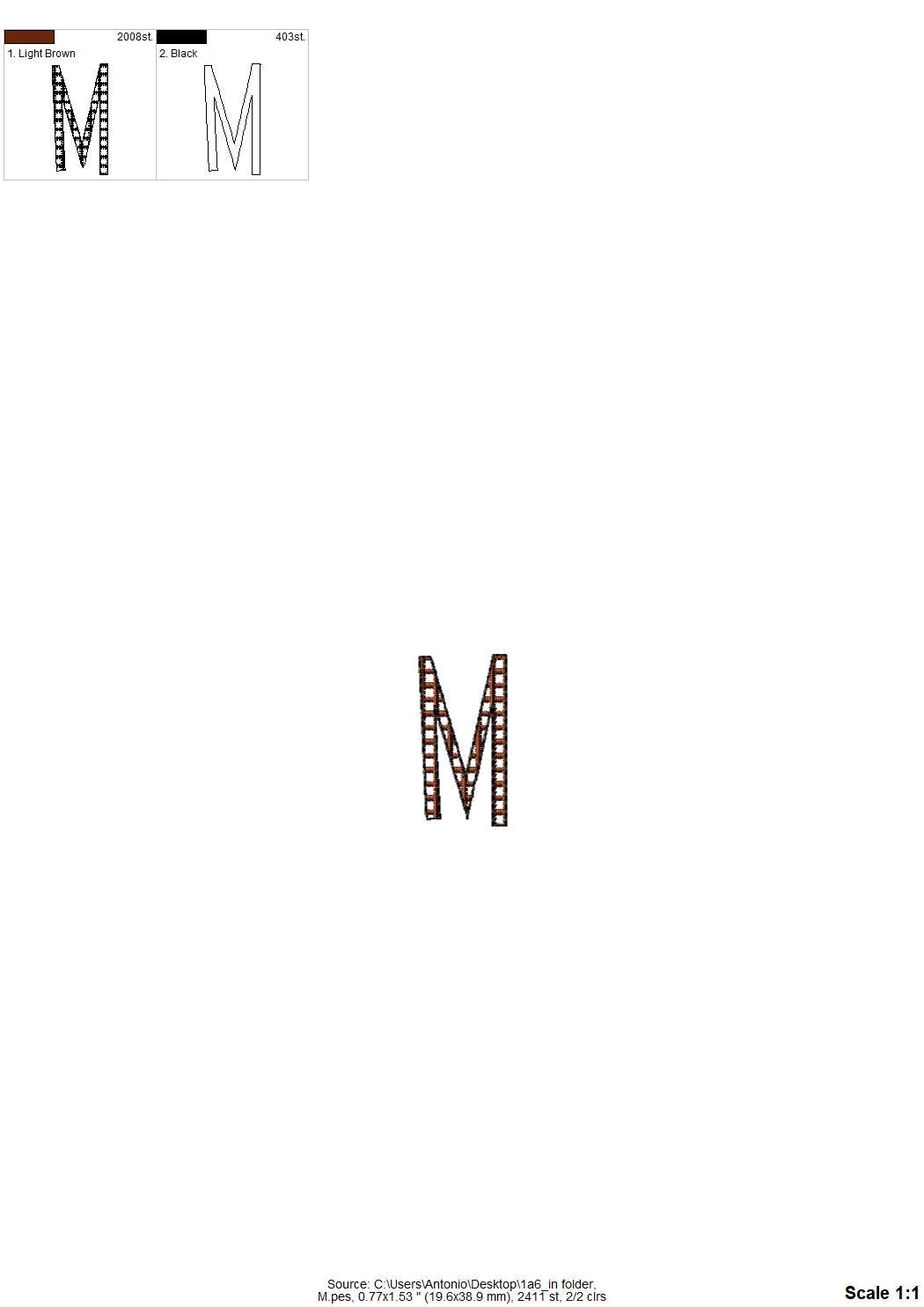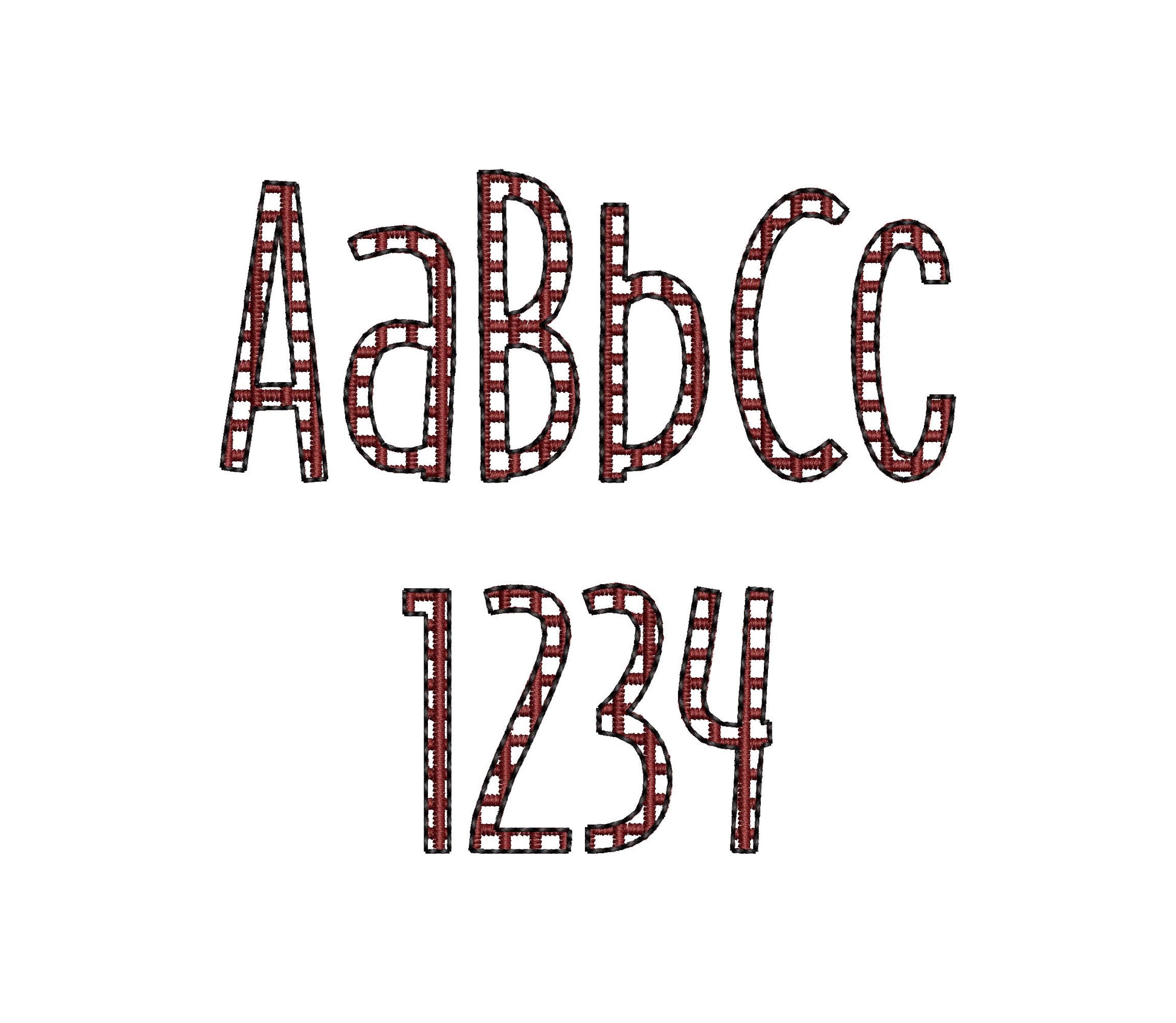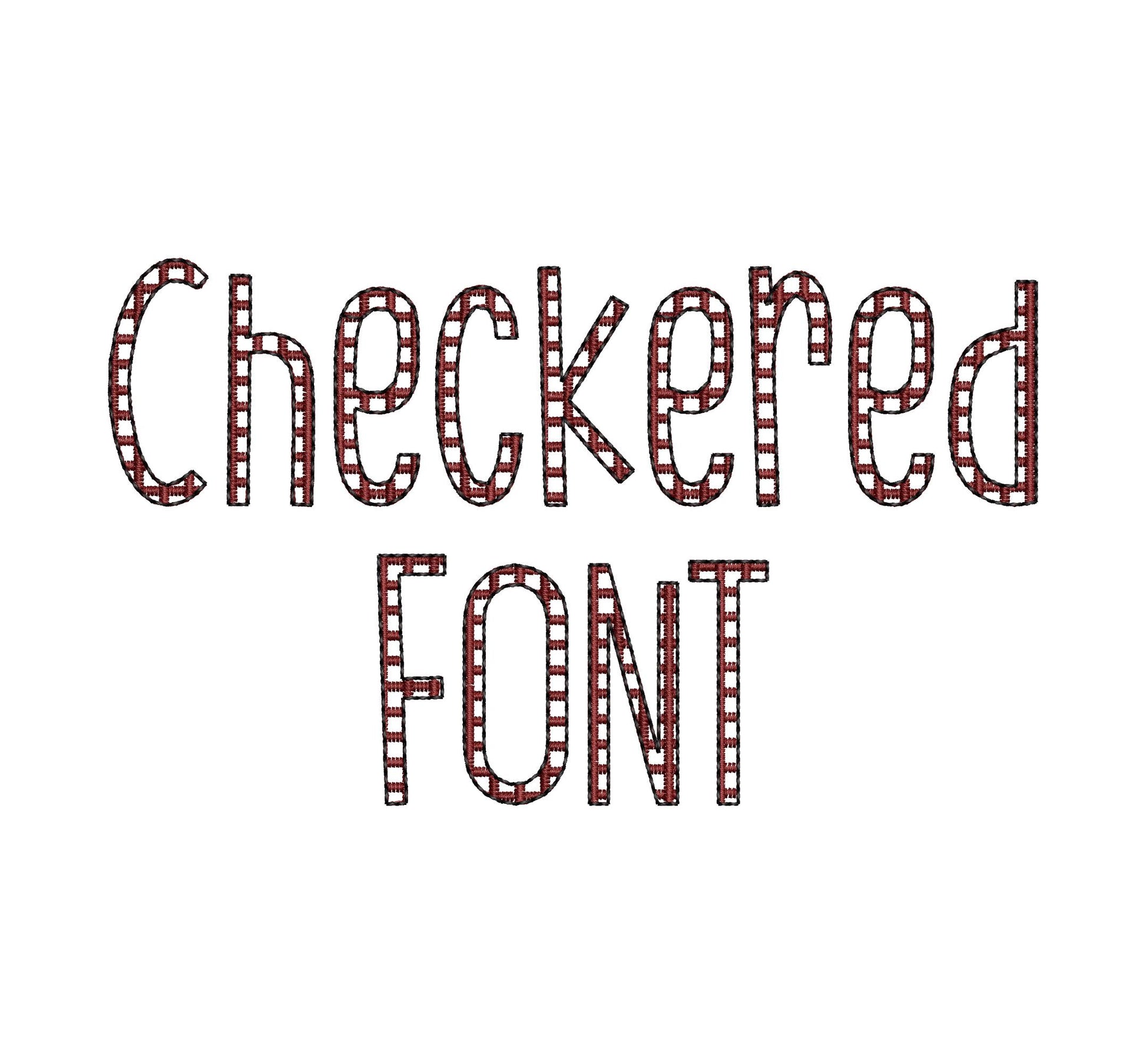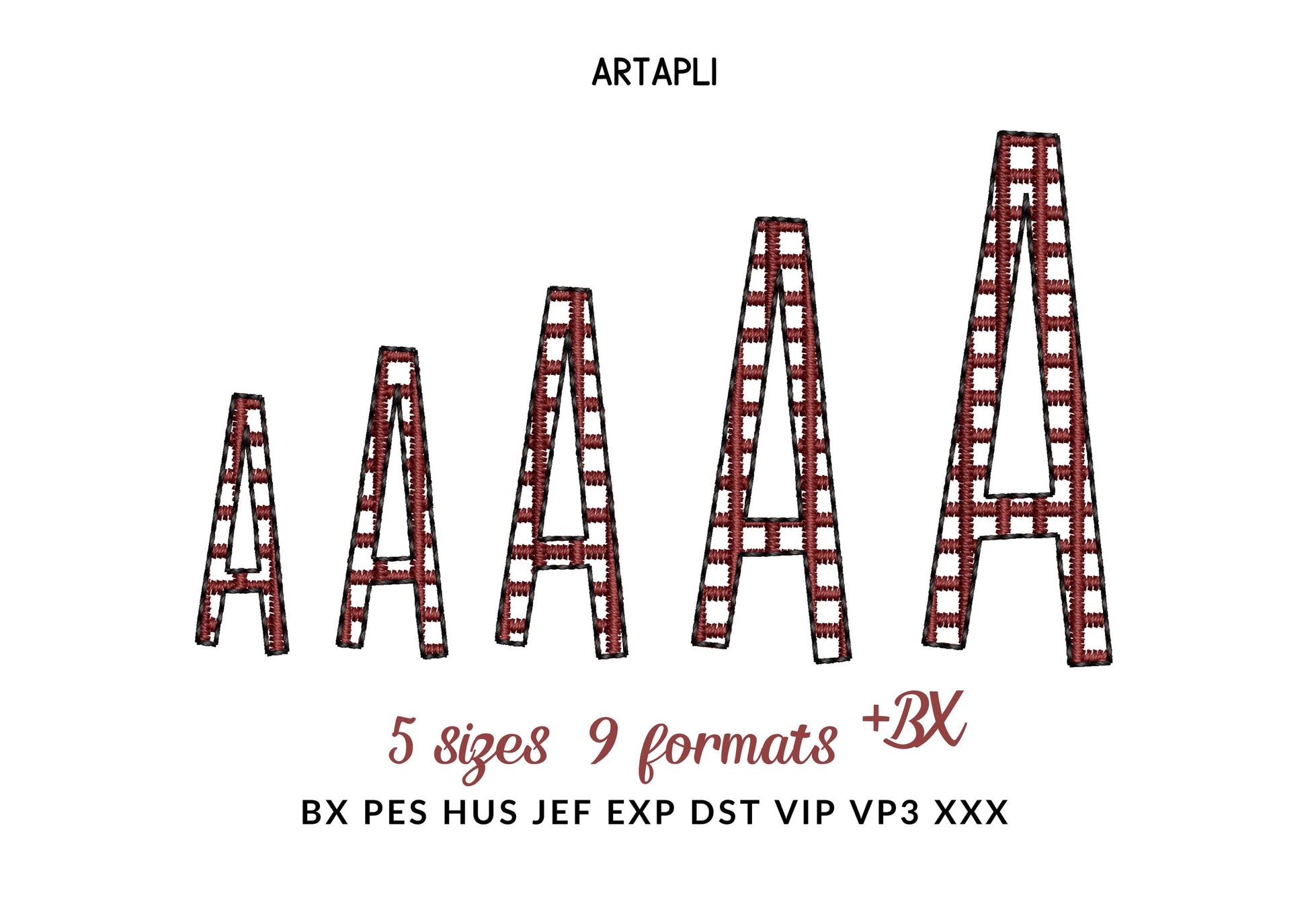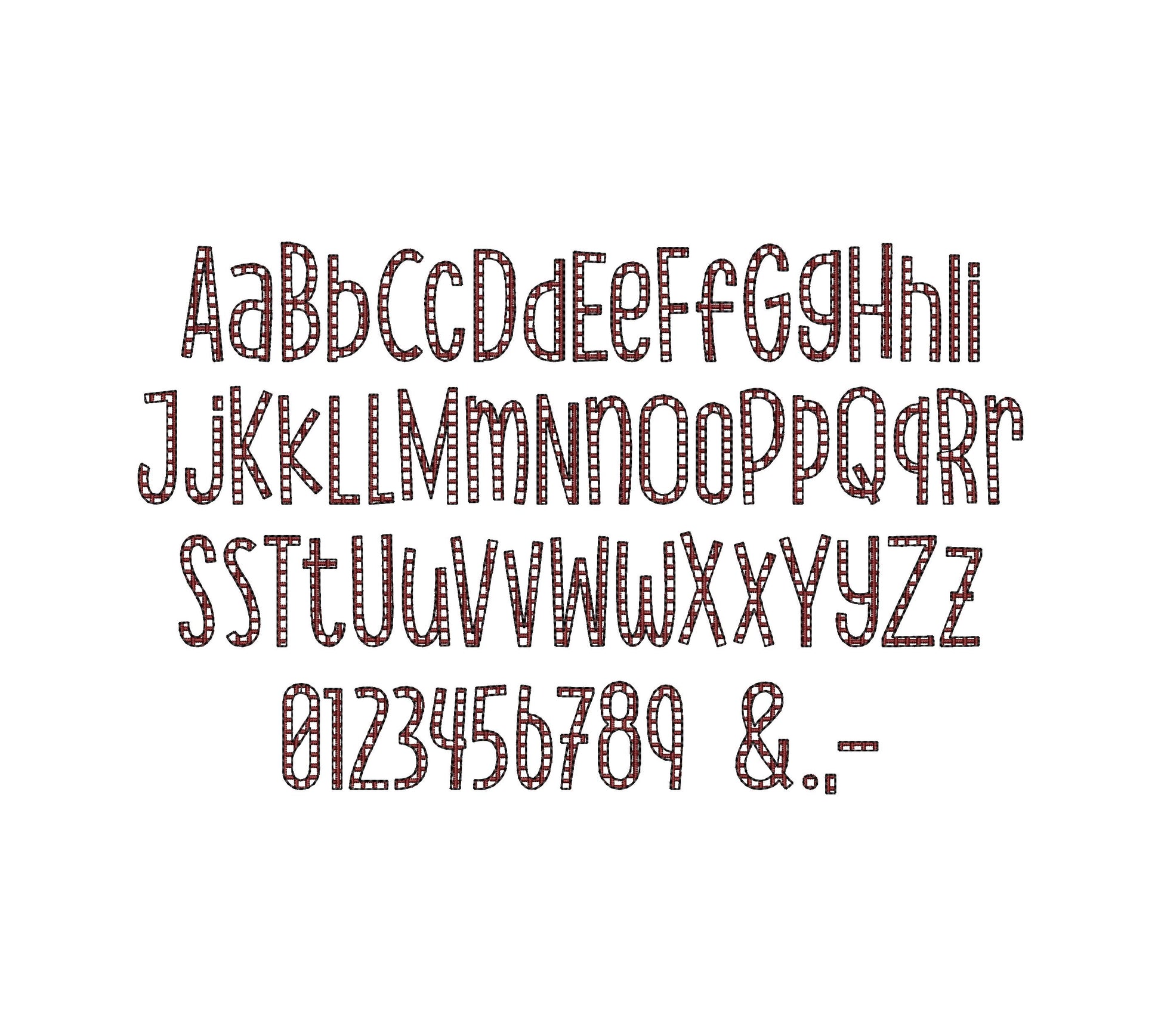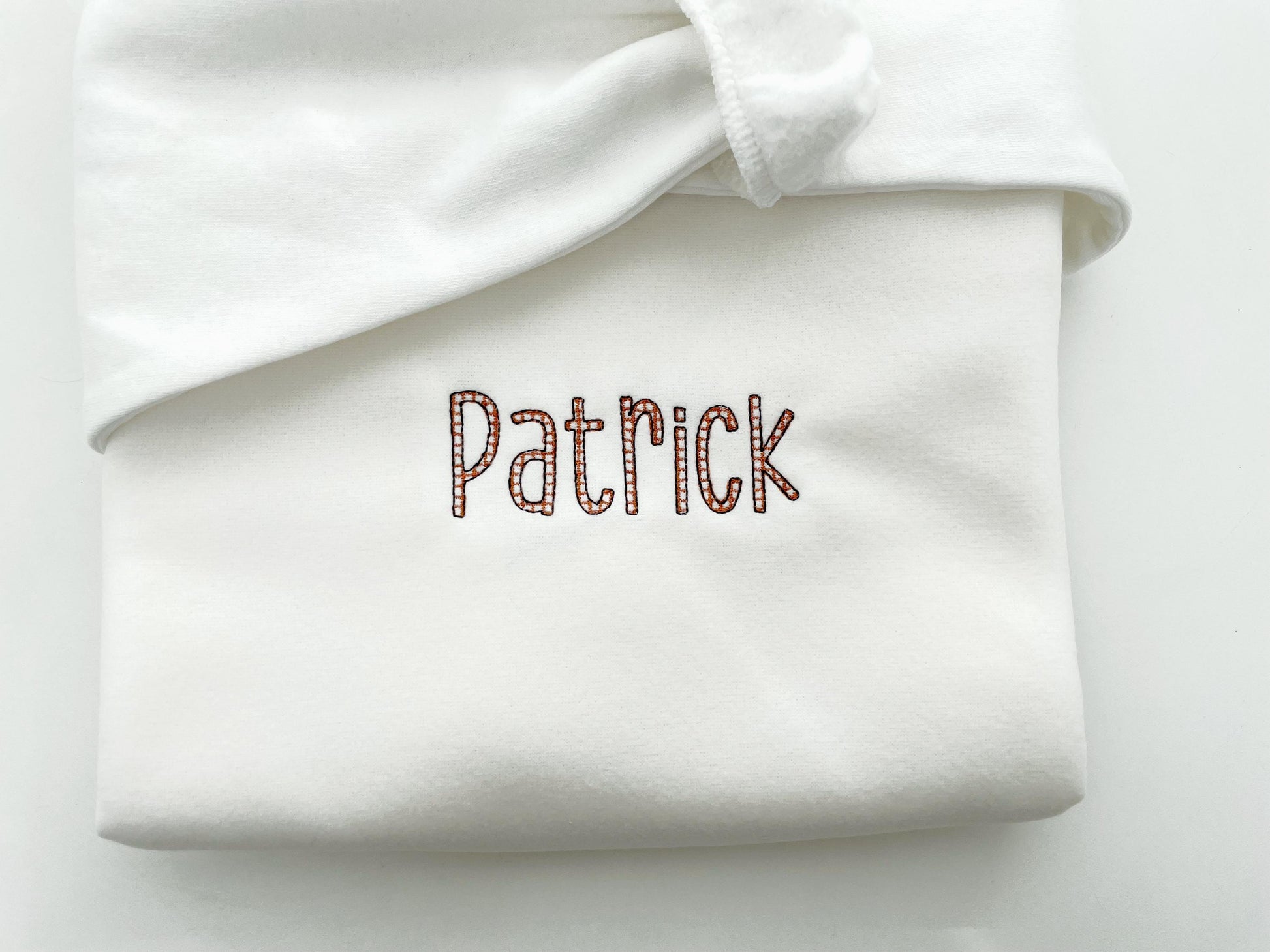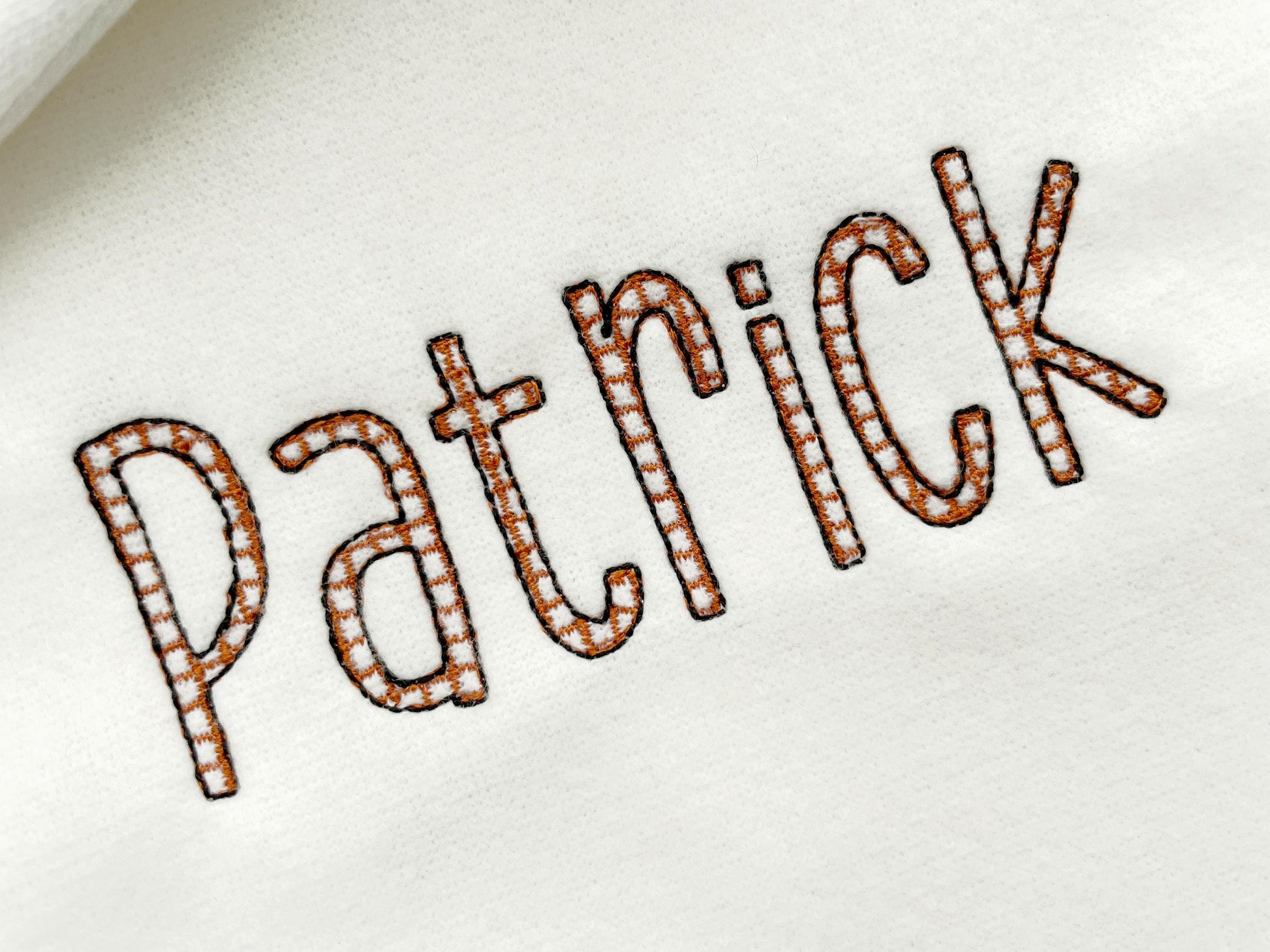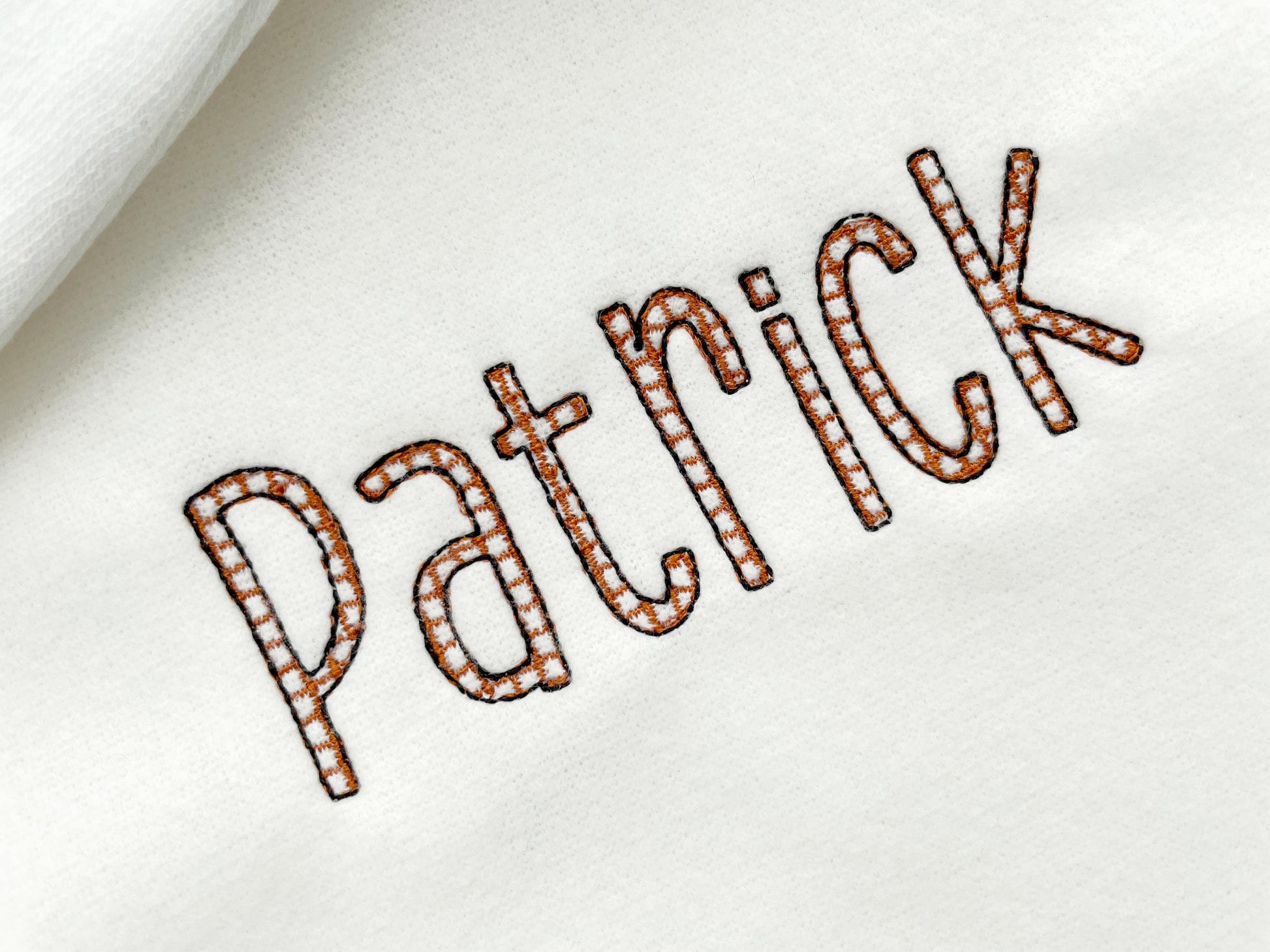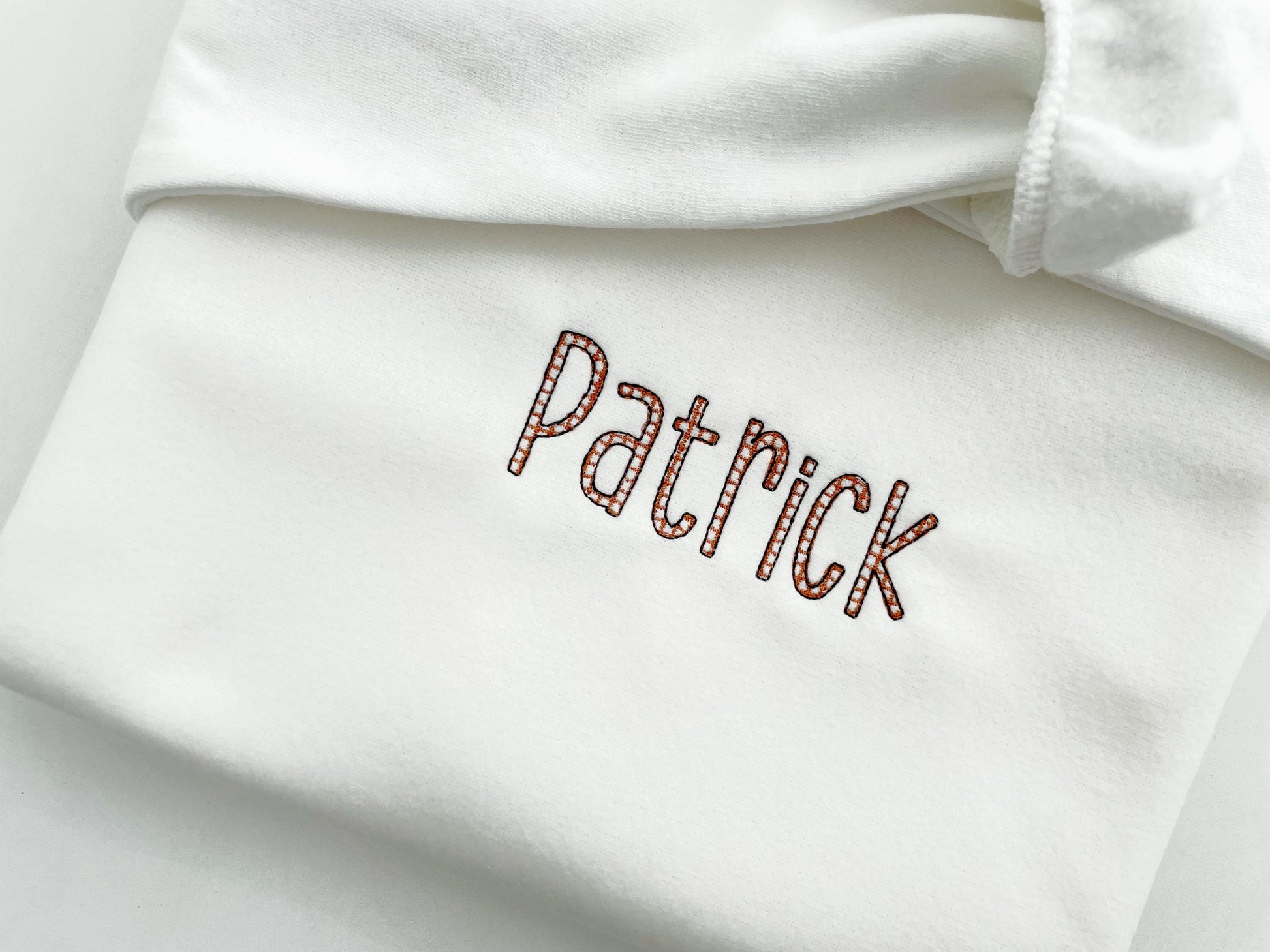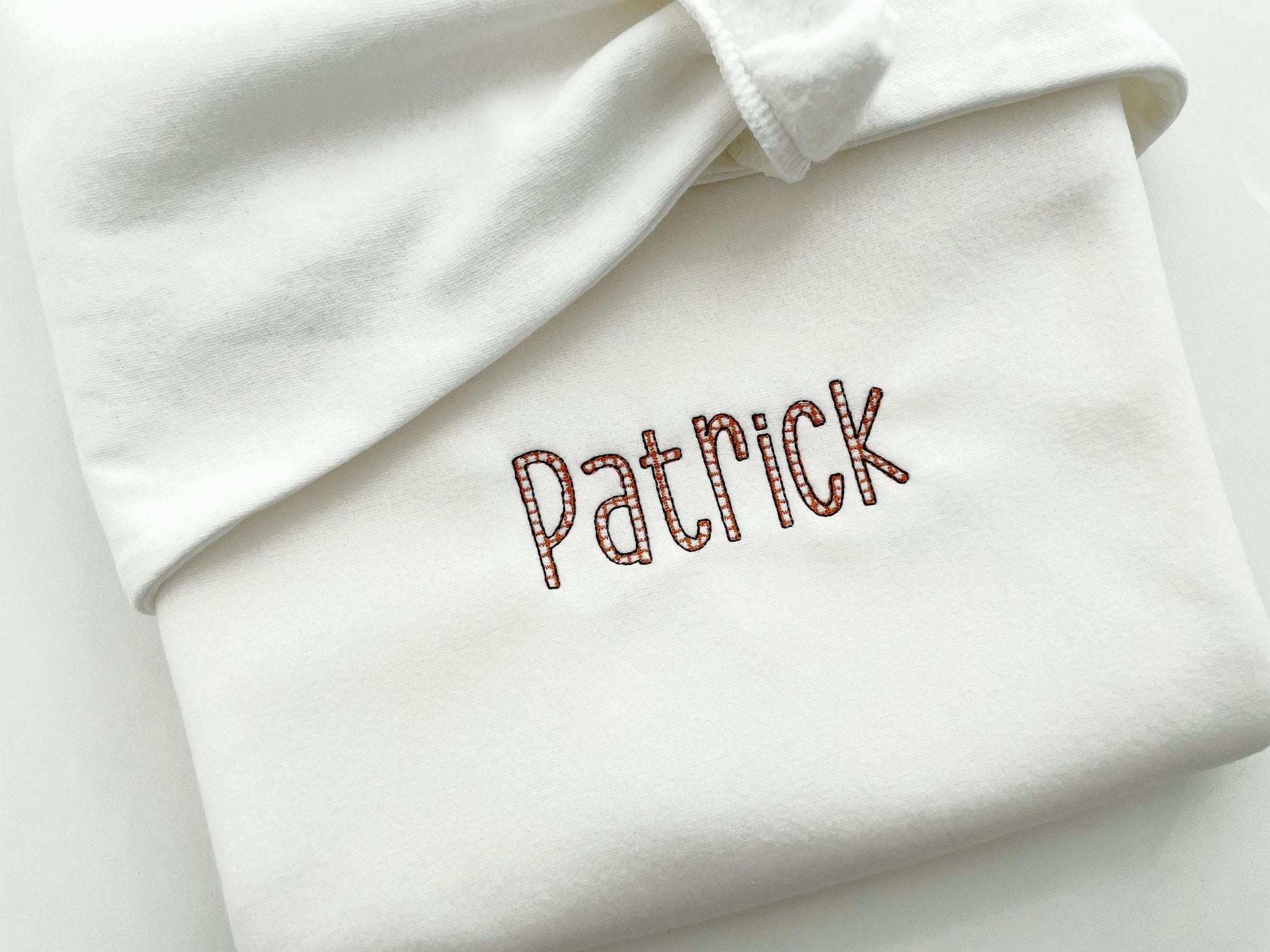
Mini Fancy Checkered Narrow Font
Uppercase and lowercase letters, numbers 0 to 9 and punctuation, in one size: 2 inches. Tall, narrow letters with a checkered fill.
- Checkered narrow font
- Uppercase, lowercase, numbers 0 to 9, punctuation
- 1 size: 2 in